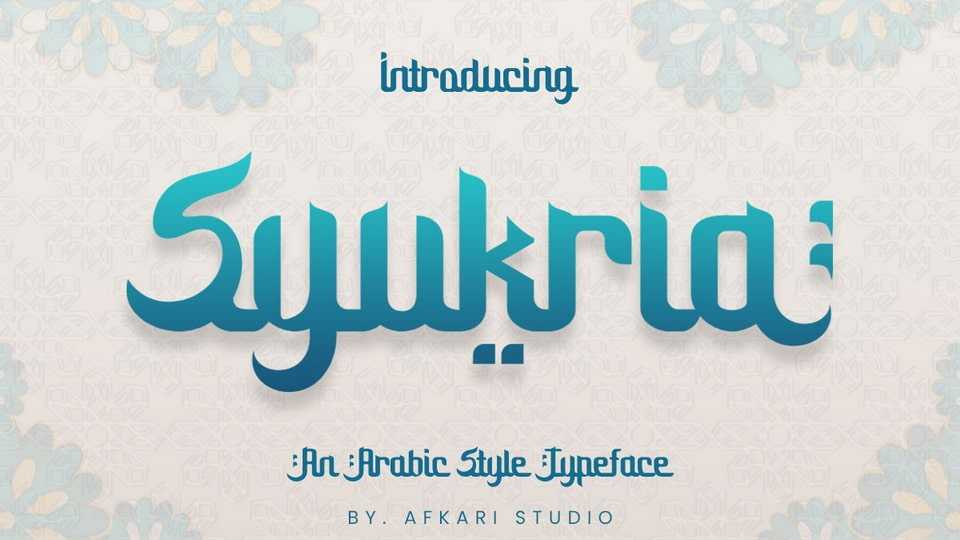
Download Syukria font, an elegant Arabic-style typeface designed to bring the beauty and richness of Arabic calligraphy into the digital realm.
Designer: Afkari Studio